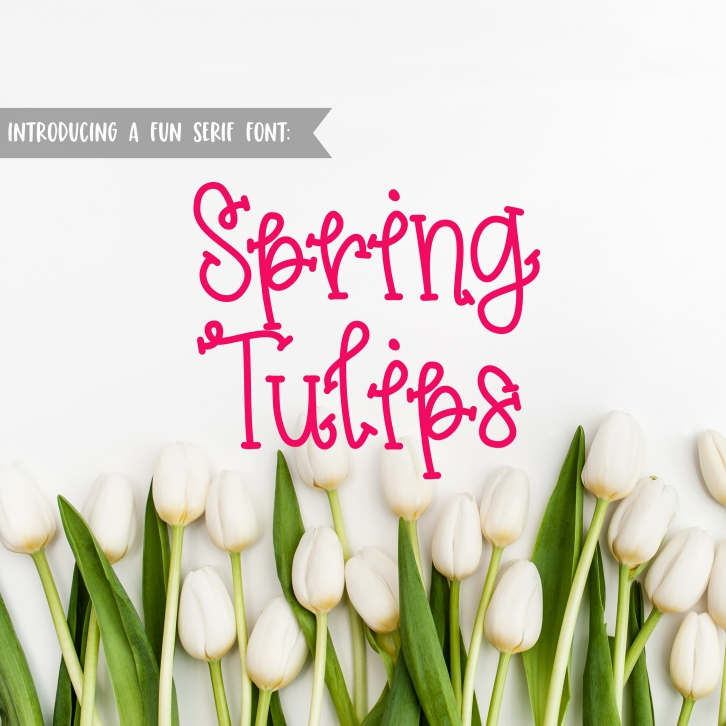
Spring Tulips Font - A Fun Hand Lettered Serif Font Download
Spring Tulips is a gorgeous font that was realeased on May 2, 2018. The font can be used in many style contexts and design environments. Perfect for invitations, magazines, websites, logos, and more! It was designed by Dez Custom Creations and the file size is 21.74 MB. Thanks for checking out this font!